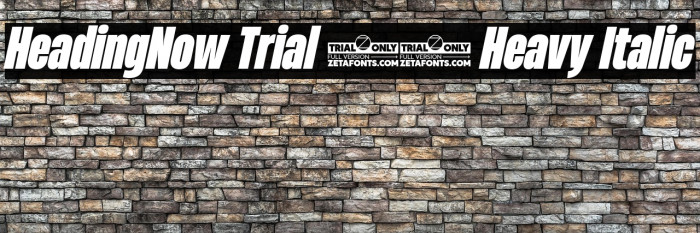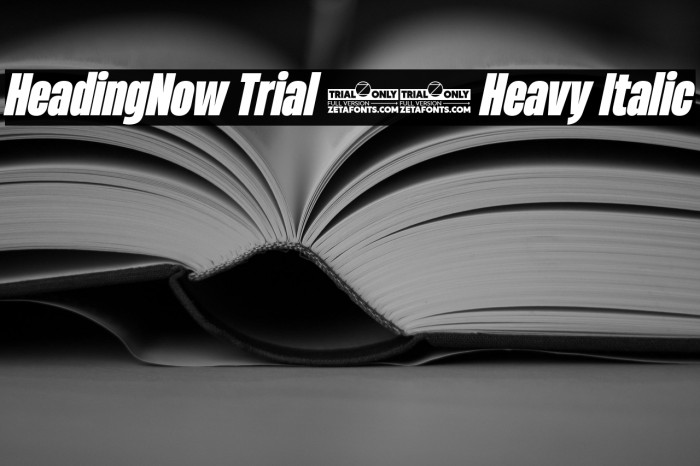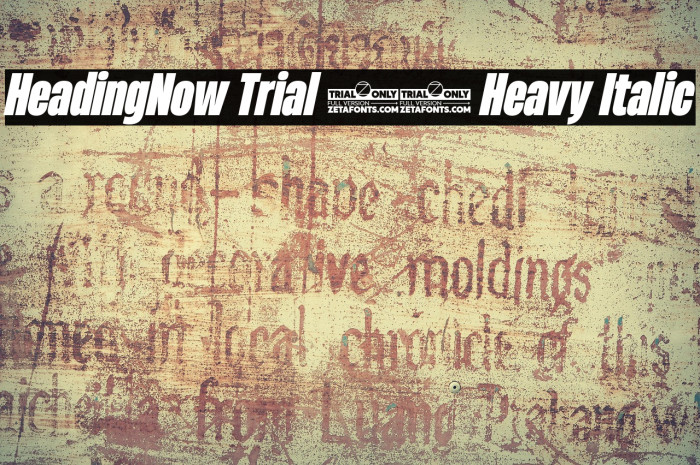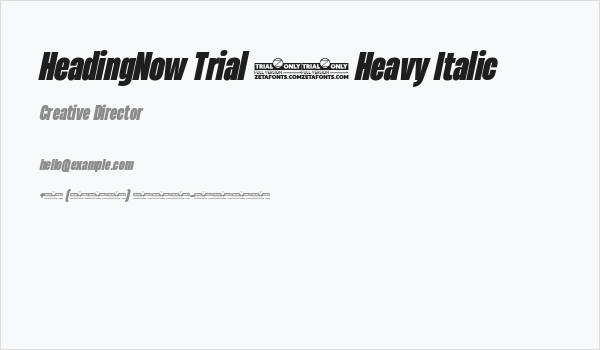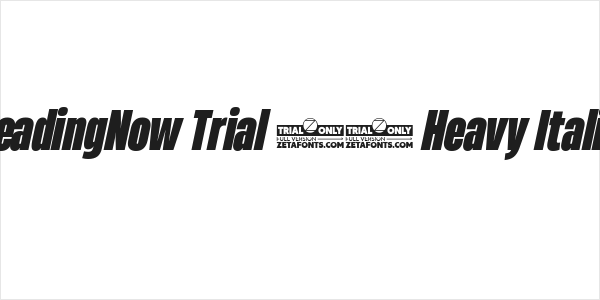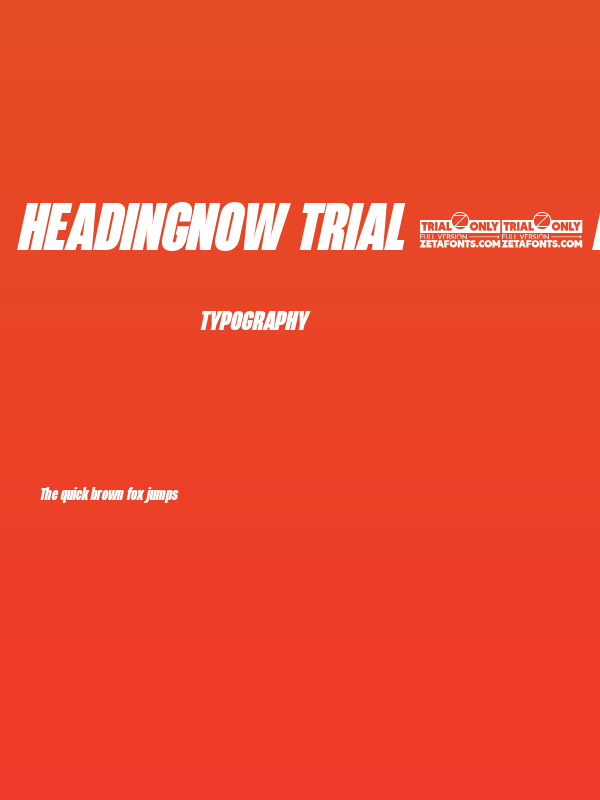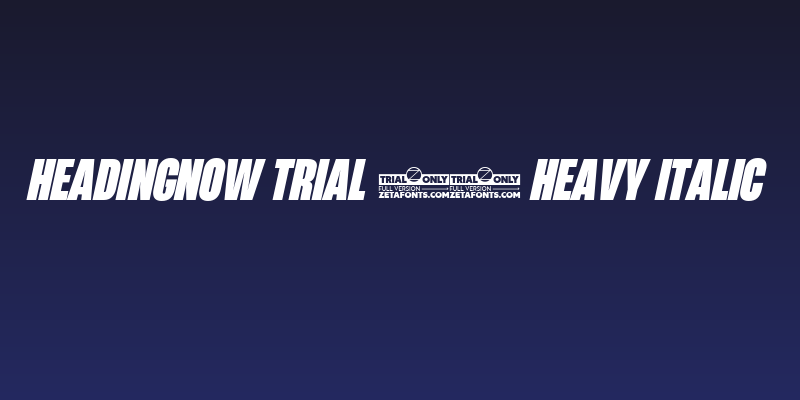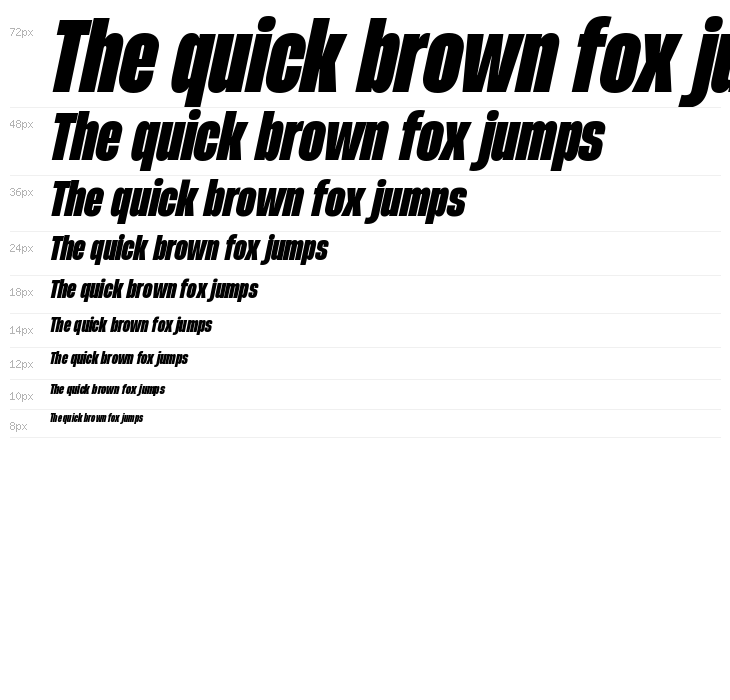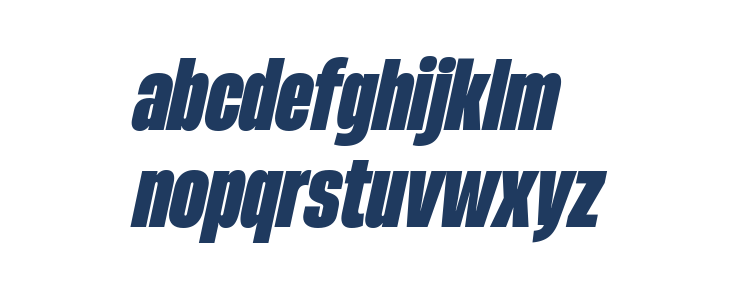
HeadingNow Trial 48 Heavy Italic Font
HeadingNow Trial 48 Heavy Italic Description
This font is characterized by its bold and heavy appearance, with a strong italic slant that gives it a dynamic and assertive look. The uppercase and lowercase letters are designed with a consistent weight, providing a uniform and cohesive style. The characters are tightly spaced, enhancing the compact and impactful nature of the font. The strokes are thick and consistent, offering a high contrast that makes the text stand out prominently. This font is ideal for making a strong visual statement, with its modern and powerful aesthetic.
| Proposed Projects | This font is well-suited for use in headlines, posters, branding materials, and any project that requires a strong and commanding visual presence. |